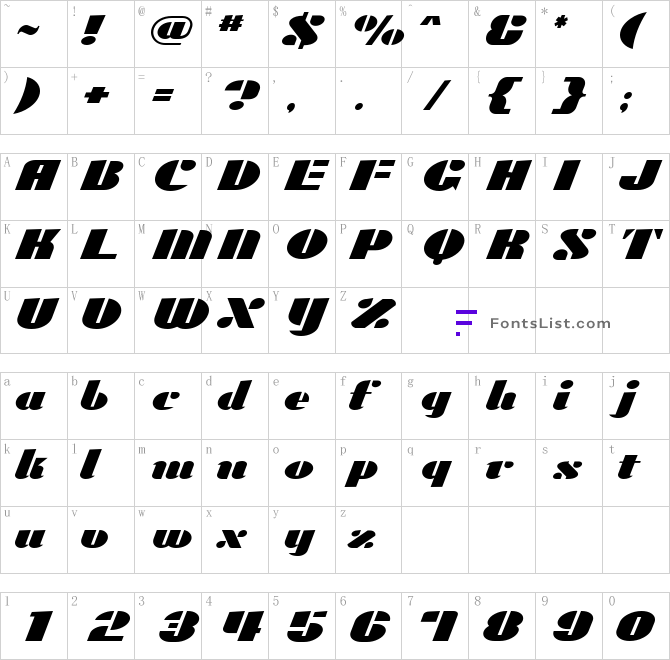
- Font Name:Caldiabold
Caldiabold.ttf is a very beautiful artistic font, Caldiabold.ttf is widely used in the design and printing of various books and pictures,Caldiabold.ttf has a strong visual impact,Caldiabold.ttf is a commonly used font in newspapers, magazines and books, and is used in posters, e-commerce Poster design, store design, logo design, font design and other fields.Caldiabold.